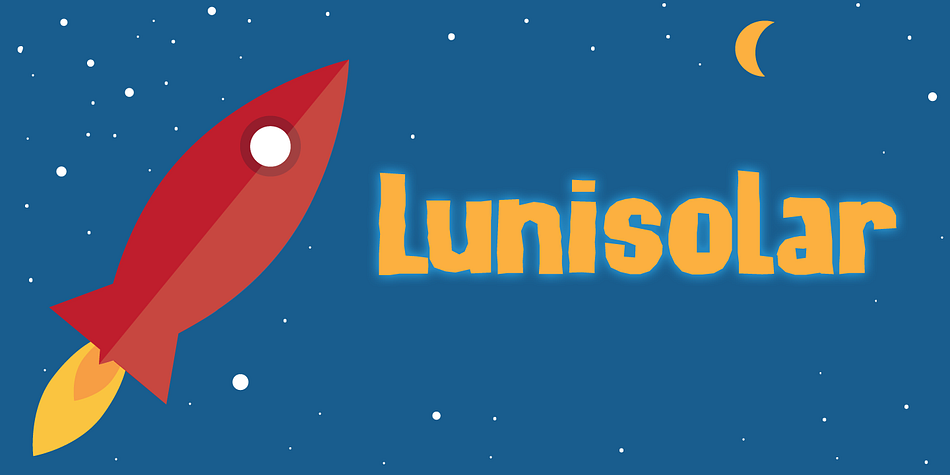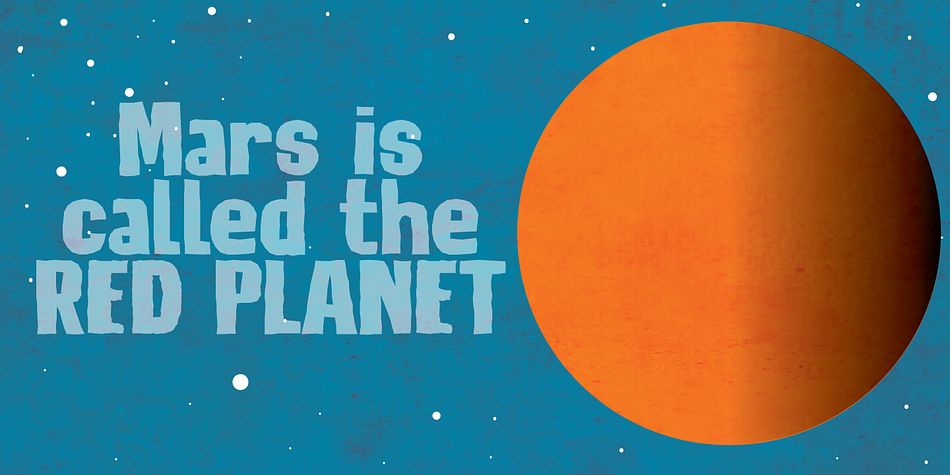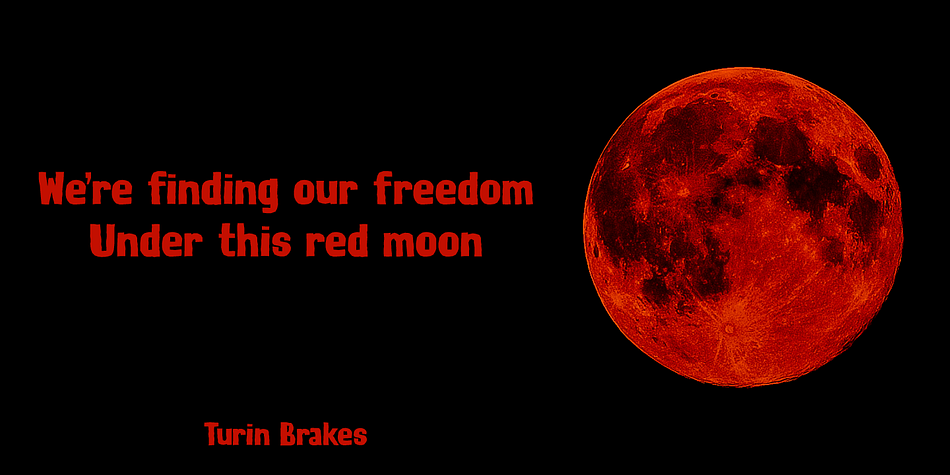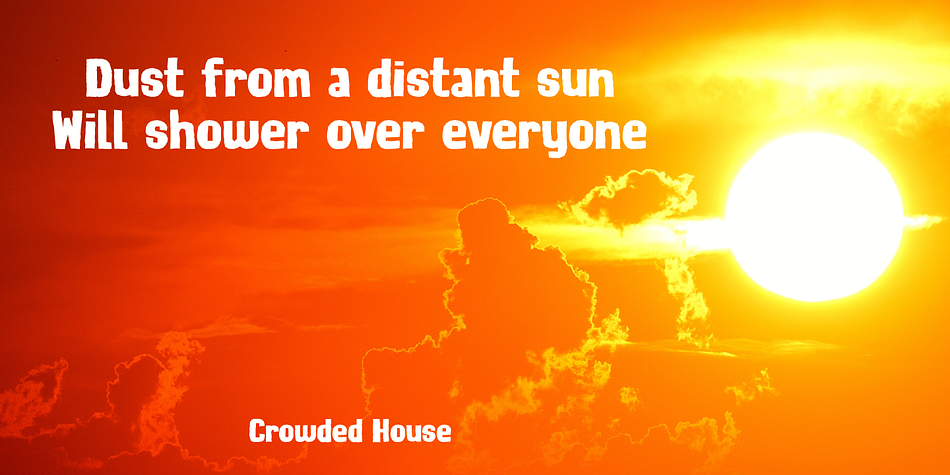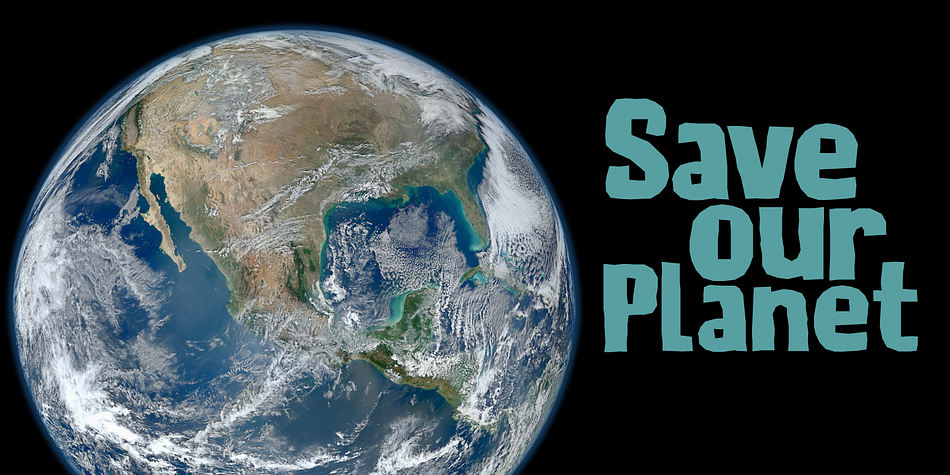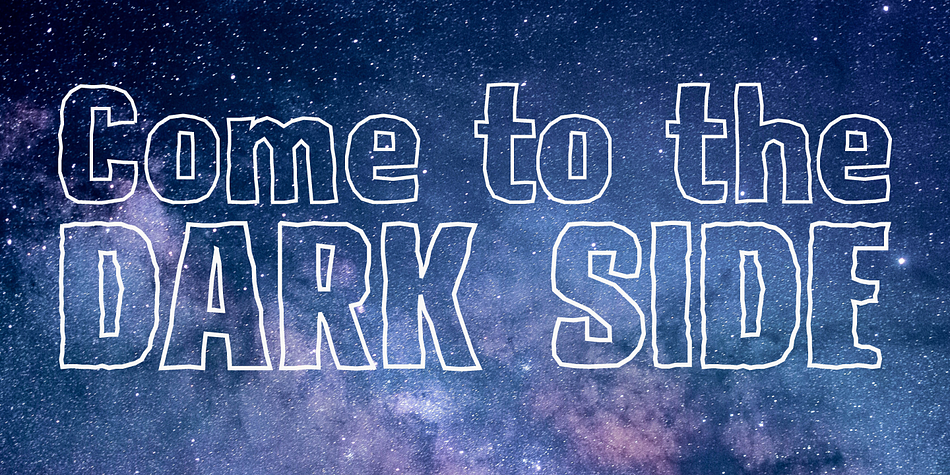
Designed by David Kerkhoff, Lunisolar is a hand display font family. This typeface has four styles and was published by Hanoded.
Lunisolar, according to the dictionary, means “of or caused by both the sun and the moon”. I liked the name, therefore I used it! Lunisolar is quite an interesting font: it is fat(tish) and rough, very neat and legible. It could be used for product packaging, book covers and starships. Comes with an abundance of diacritics.